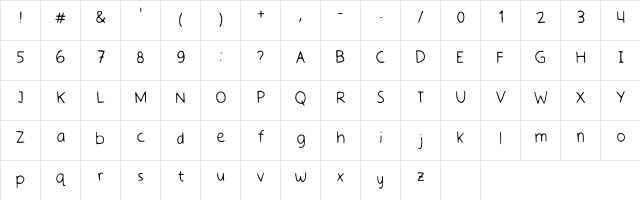
Elvina Amelia Regular
Design Context for Elvina Amelia Typeface
Elvina Amelia offers clean, dependable letterforms without strong stylistic allegiance, making it a practical choice for designers who need flexibility.